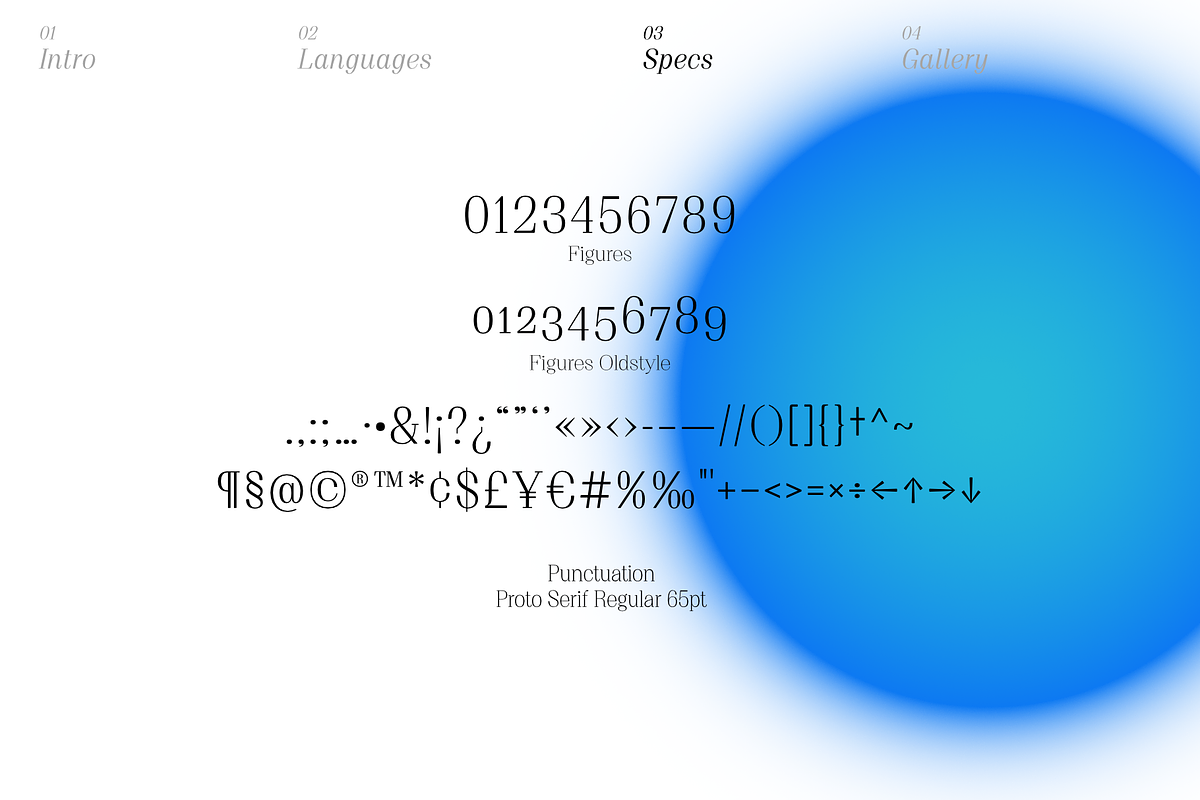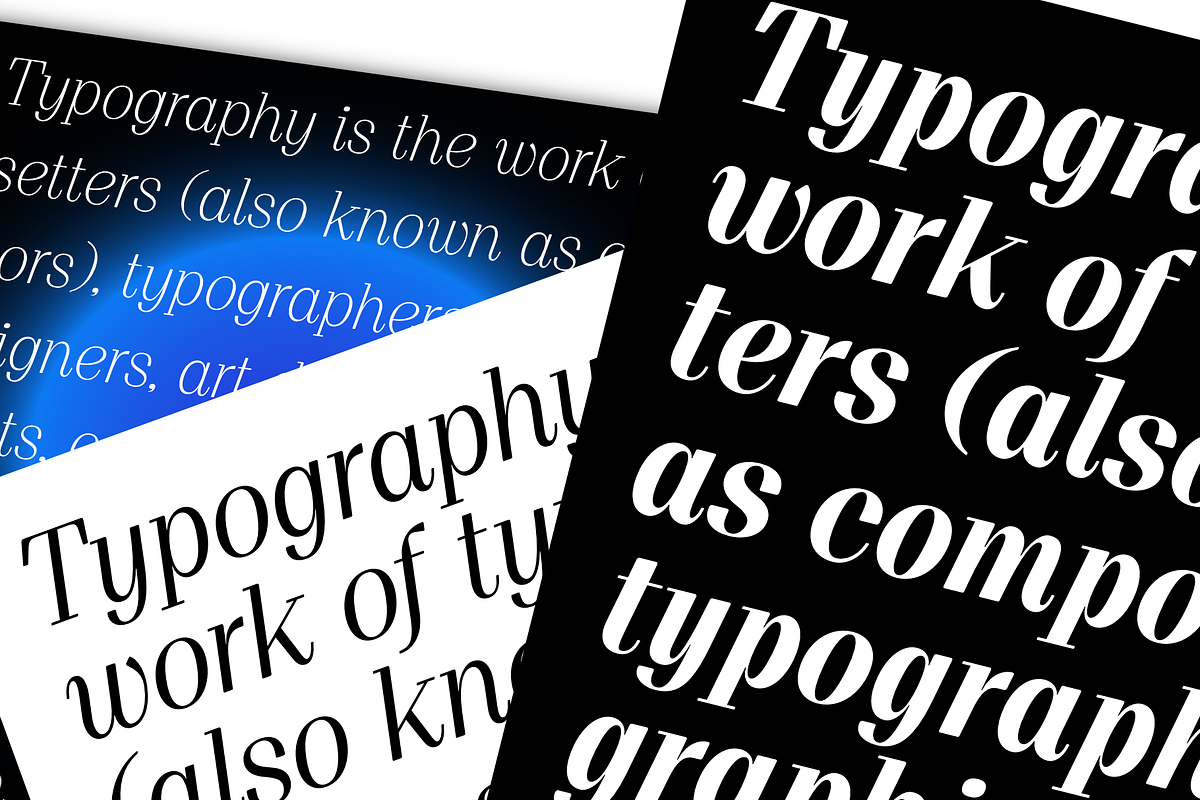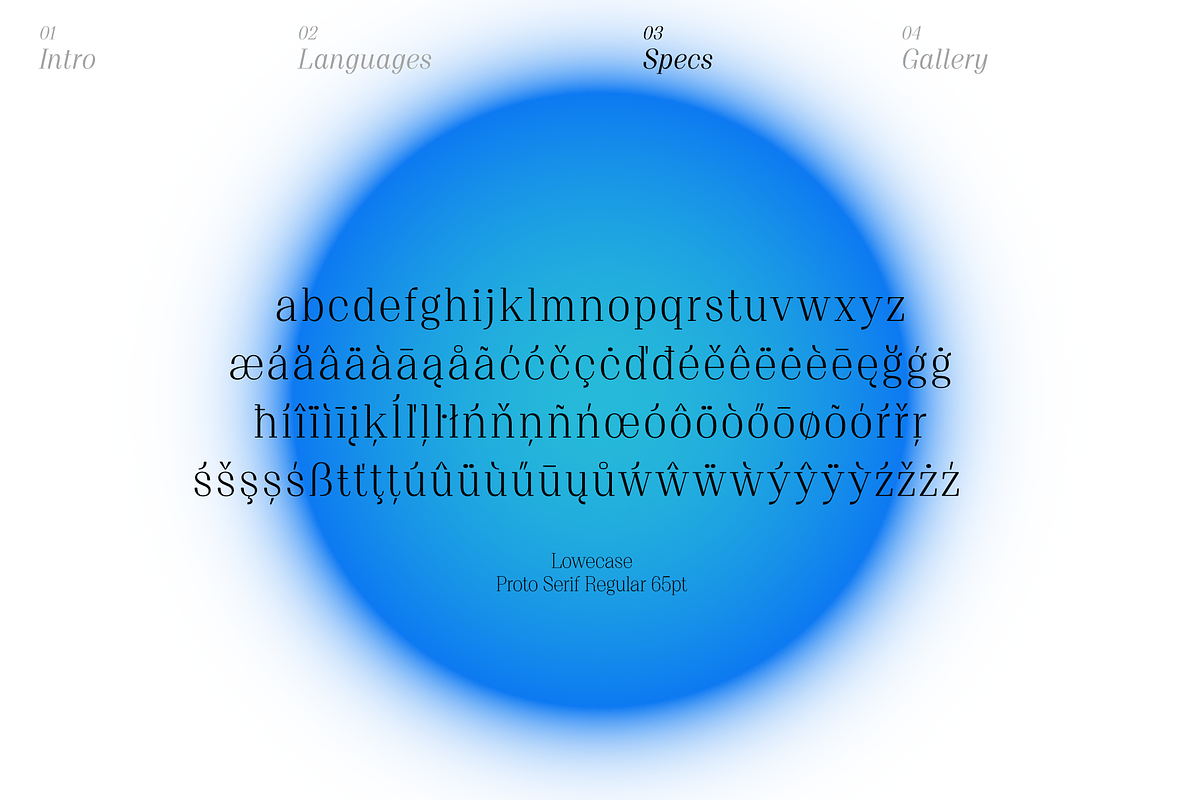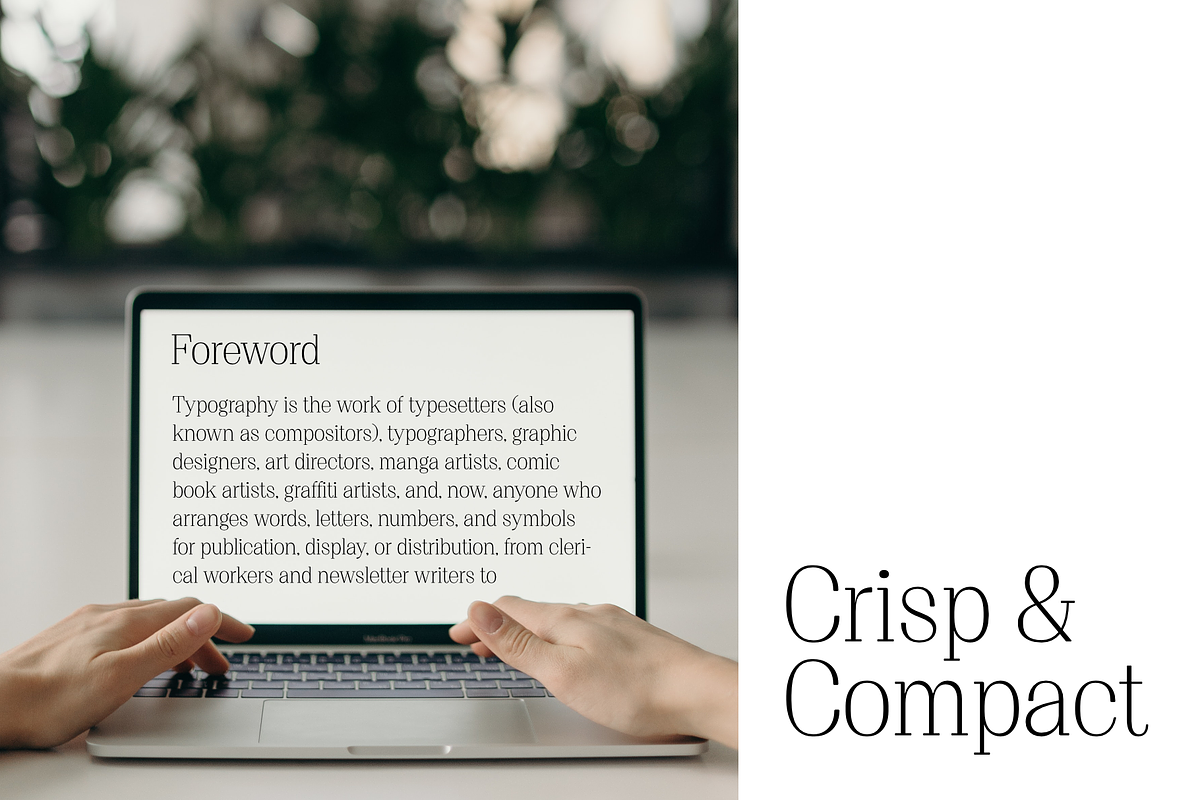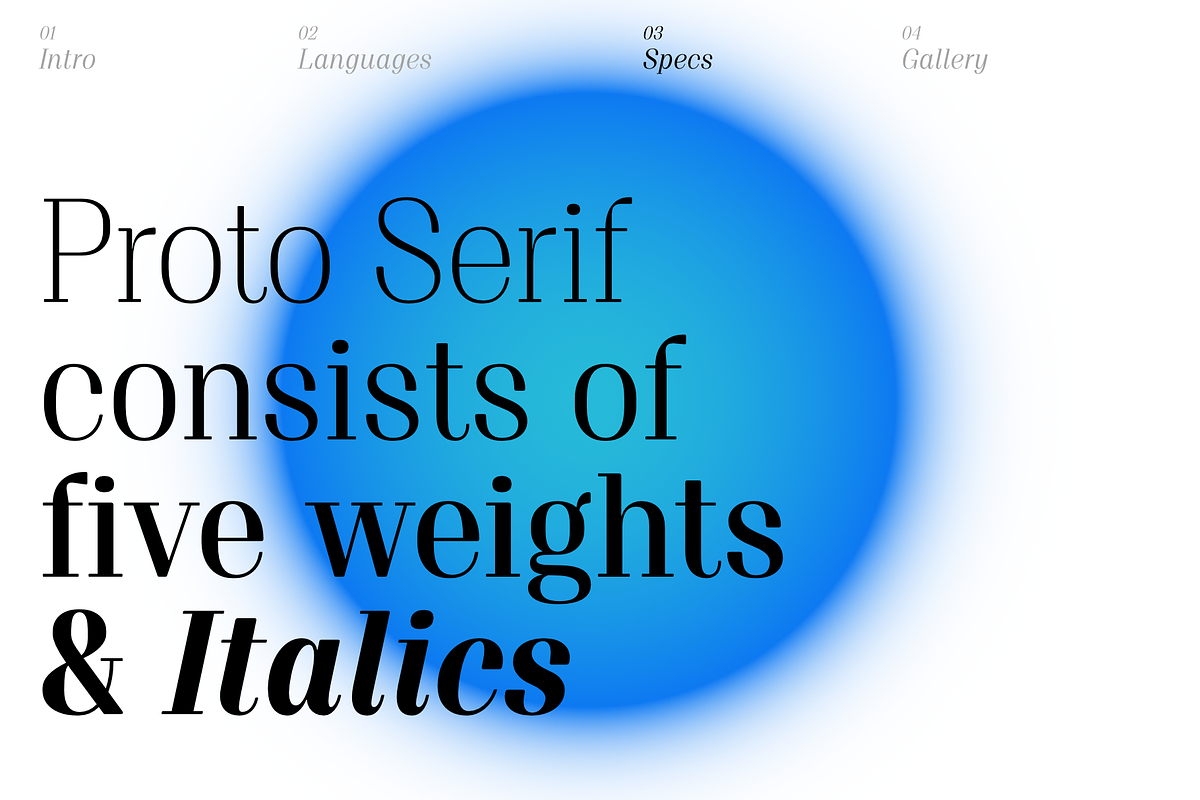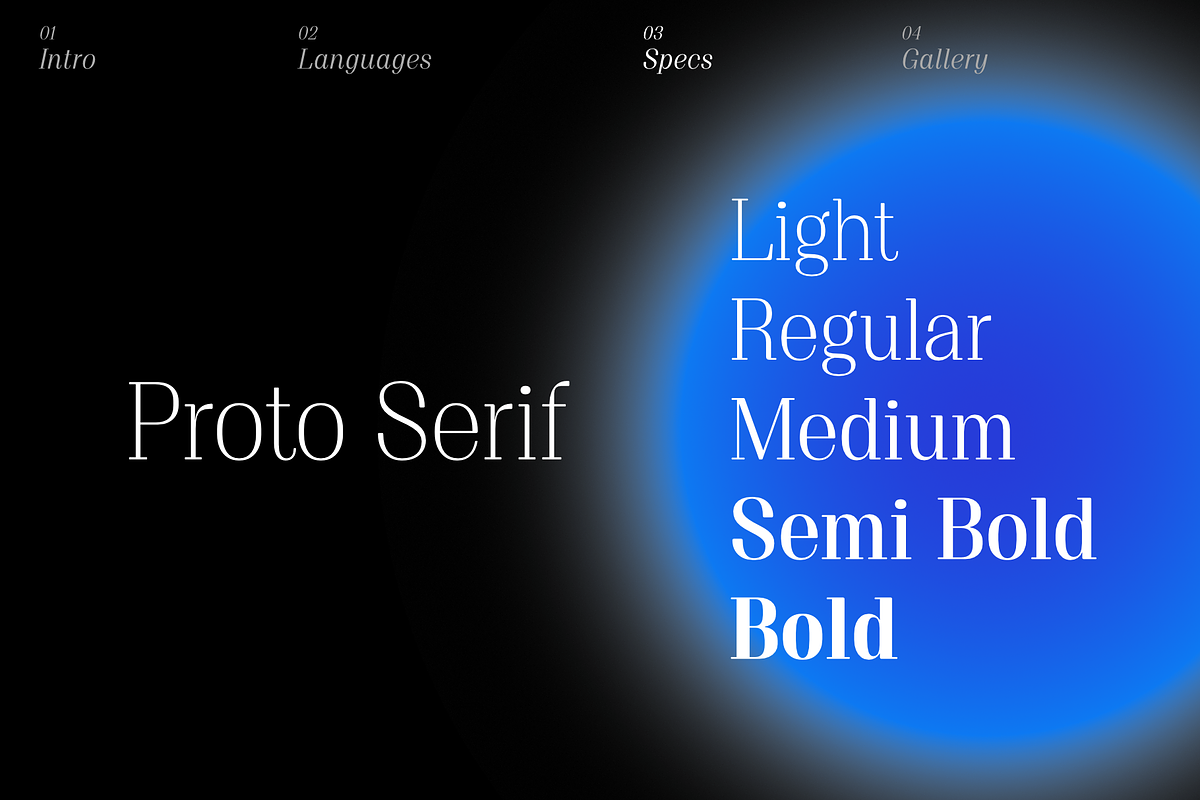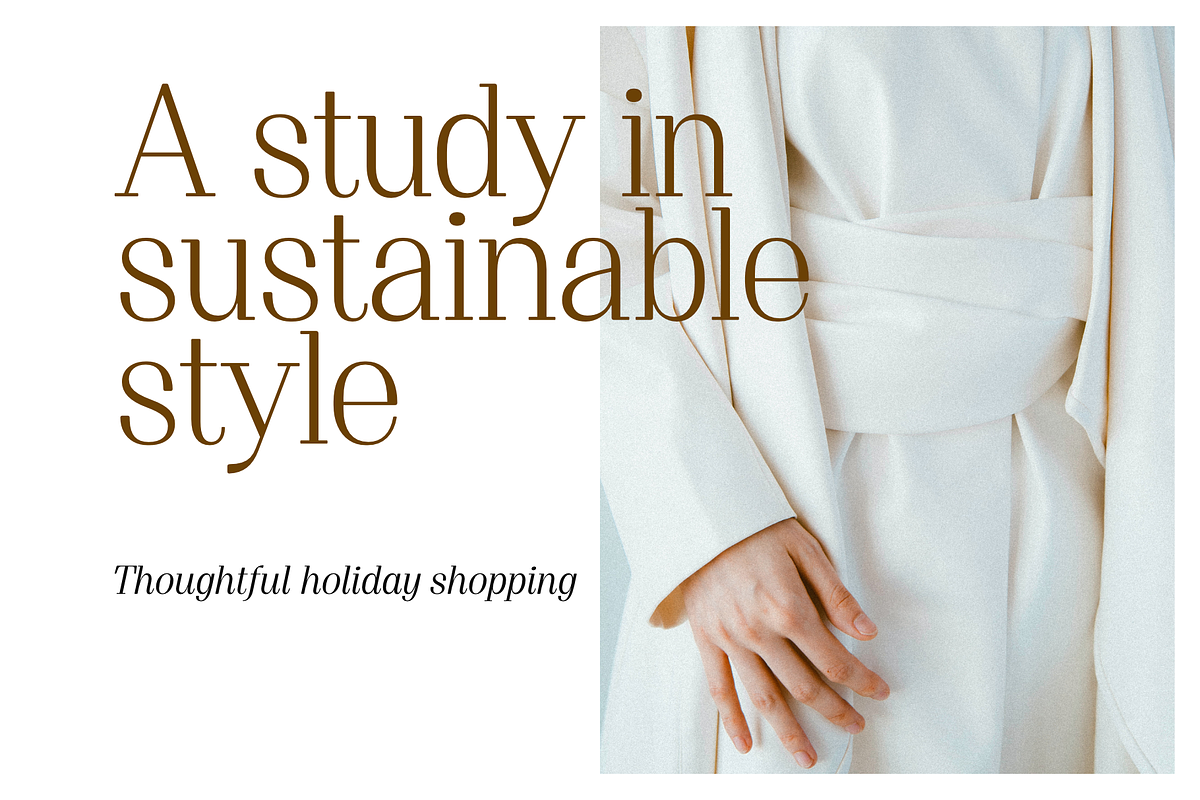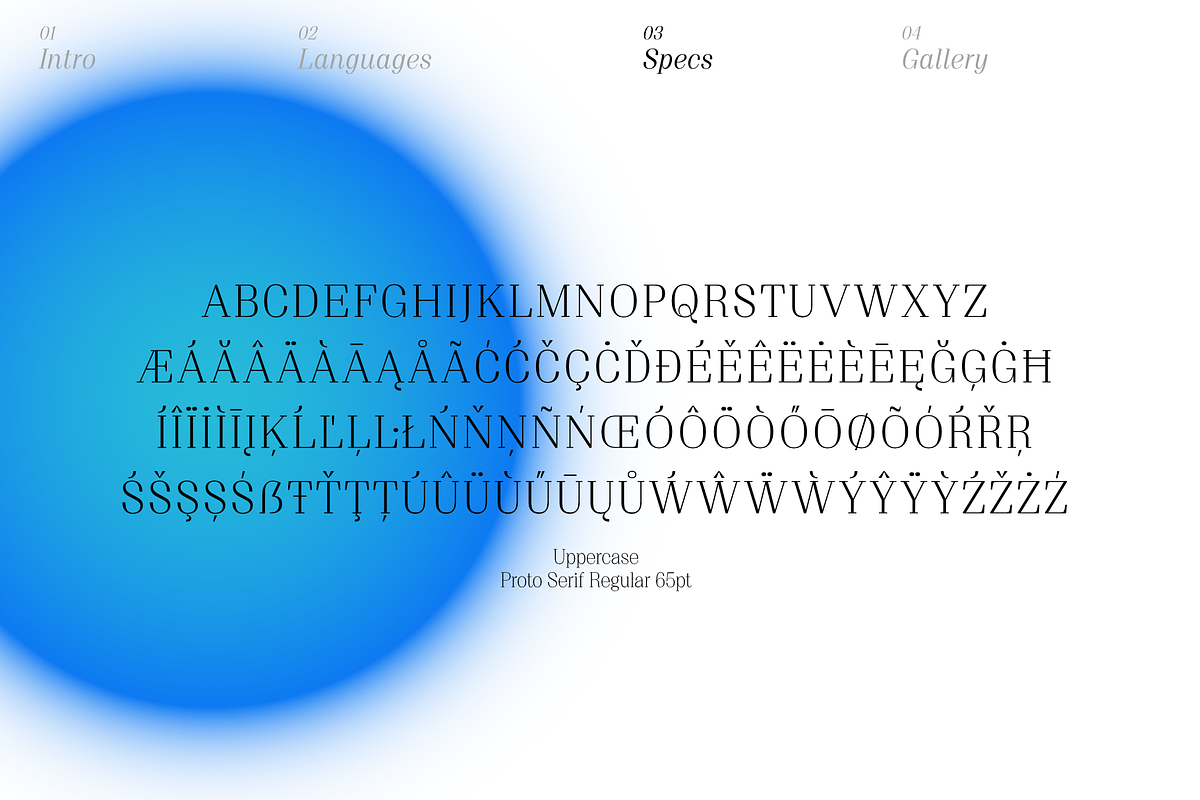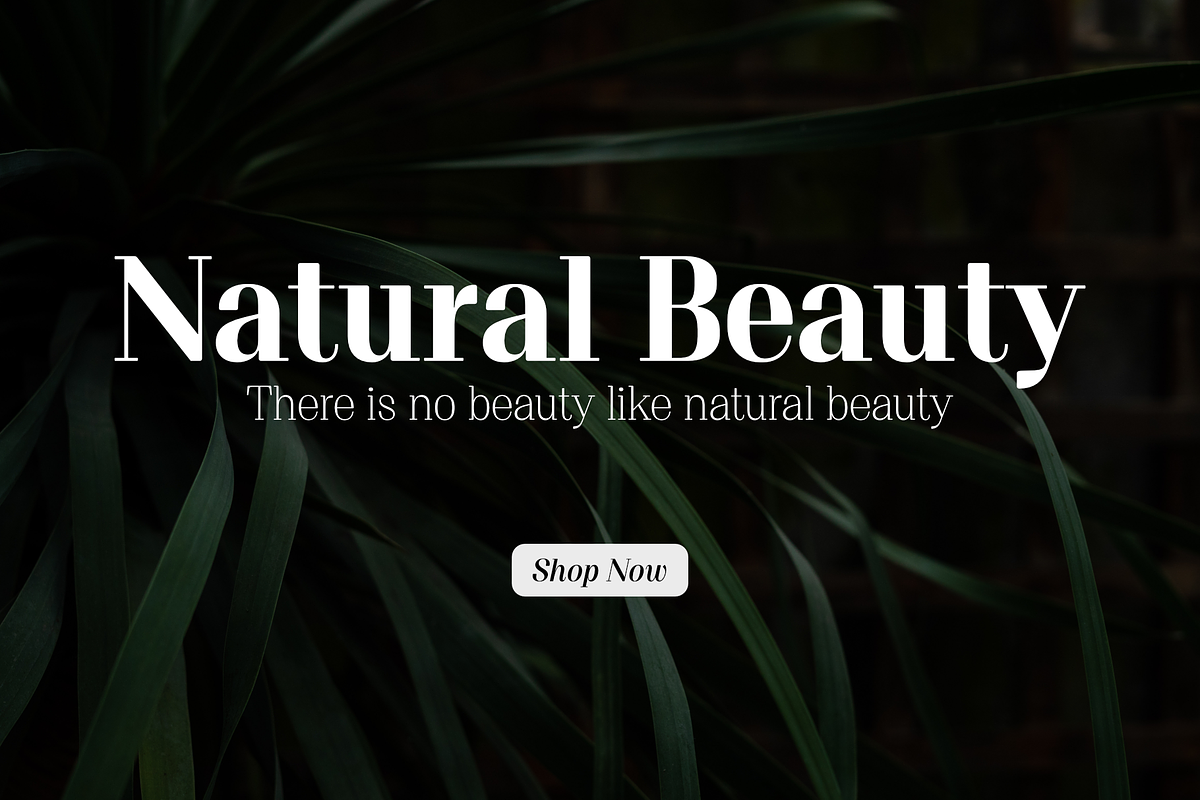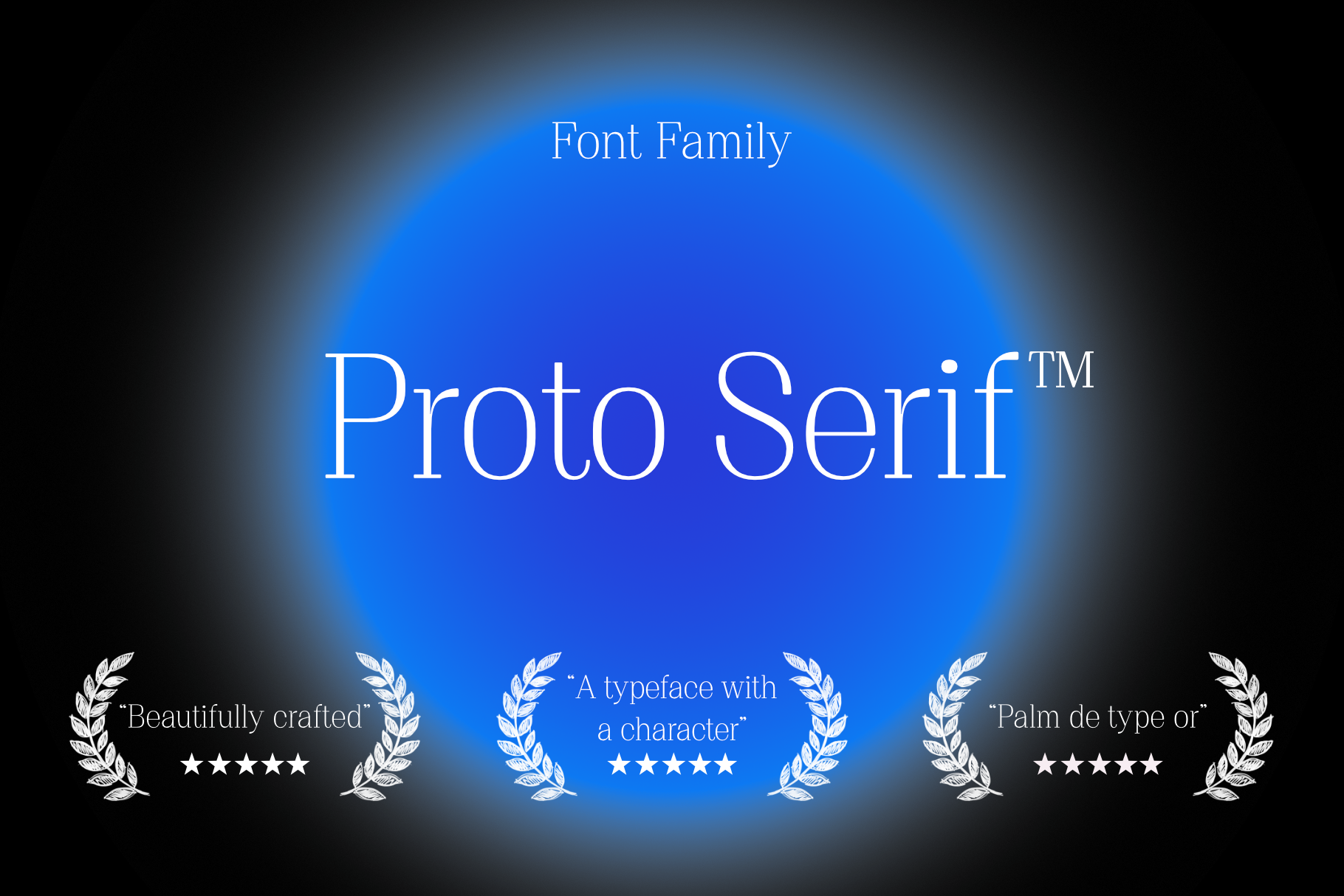
Proto Serif Font Family
Proto Serif is a Didon hight contrast serif typeface, with economical proportions and distinct vertical stress. Each character was crafted with great attention to detail, it has thin serifs and distinctive terminals, and relatively large x-height which is great for headlines. It consists of five weights from light to bold and italic and supports the major western languages.